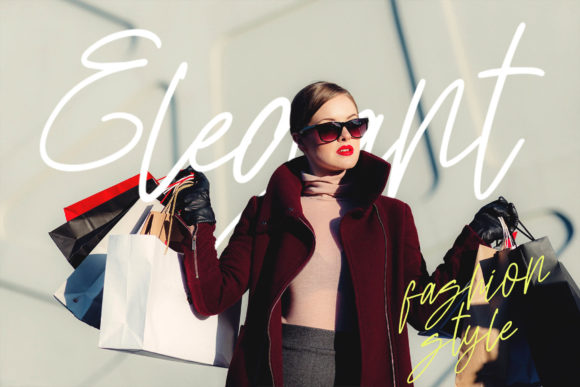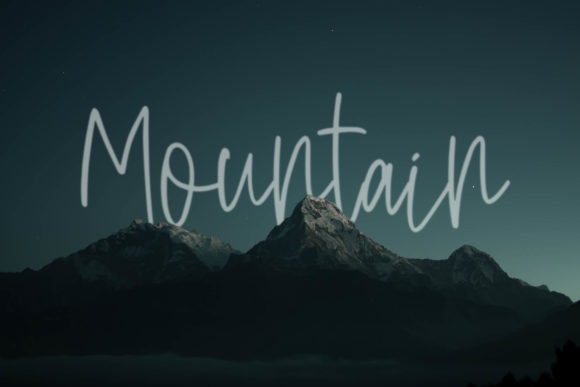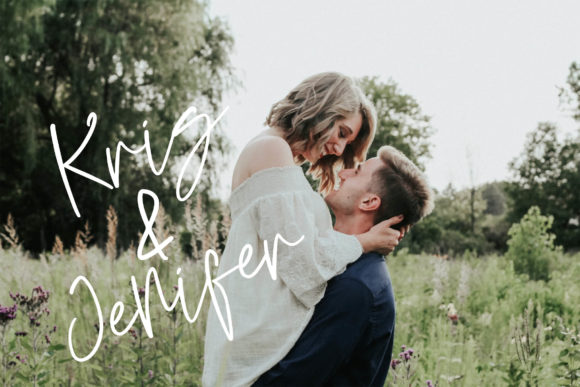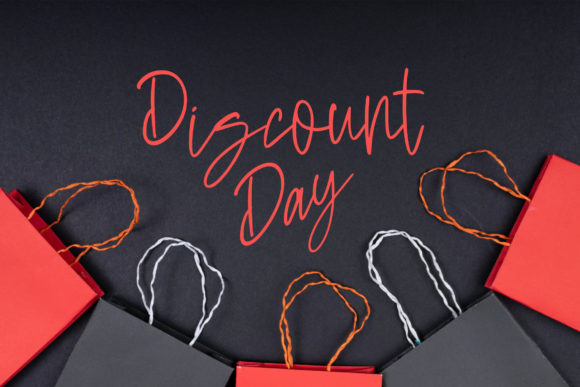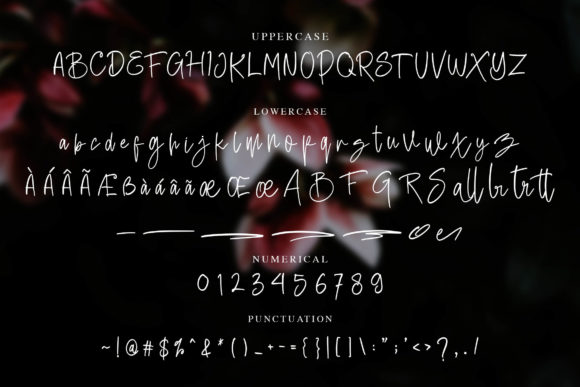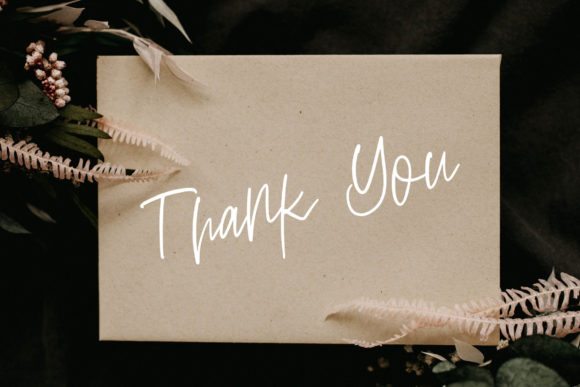
Battie Sellie Font: The Sweet and Adaptable Script Font for Your Creative Projects
Are you a designer or crafter looking for a font that can add a touch of elegance and sophistication to your creative projects? Look no further than the Battie Sellie font. This thin and delicate script font is perfect for creating gorgeous wedding invitations, beautiful stationary art, eye-catching social media posts, and much more. In this article, we’ll take a closer look at the Battie Sellie font and explore its features, benefits, and uses.
What is Battie Sellie Font?
Battie Sellie is a beautiful script font that is characterized by its thin and delicate lines. Its sweet and adaptable style makes it perfect for a wide range of creative projects, from wedding invitations and stationary art to social media posts and more. The font is designed to be highly versatile, making it easy to use in different contexts and designs.
Features of Battie Sellie Font
The Battie Sellie font has several features that make it a great choice for designers and crafters. Some of its key features include:
- Thin and delicate lines: The font’s thin and delicate lines give it a elegant and sophisticated look that is perfect for creating beautiful and eye-catching designs.
- Sweet and adaptable style: The font’s sweet and adaptable style makes it easy to use in different contexts and designs, from formal to informal.
- Highly versatile: The font is highly versatile, making it perfect for a wide range of creative projects, from wedding invitations and stationary art to social media posts and more.
- Easy to read: Despite its delicate lines, the font is easy to read, making it perfect for use in body text as well as headings and titles.
Benefits of Using Battie Sellie Font
There are several benefits to using the Battie Sellie font in your creative projects. Some of the key benefits include:
- Adds elegance and sophistication: The font’s thin and delicate lines give it an elegant and sophisticated look that can add a touch of class to any design.
- Perfect for wedding and event designs: The font’s sweet and adaptable style makes it perfect for creating beautiful wedding invitations, stationary art, and other event-related designs.
- Great for social media posts: The font’s highly versatile style makes it perfect for creating eye-catching social media posts that can help you stand out from the crowd.
- Easy to use: The font is easy to use and can be easily integrated into your design workflow.
Uses of Battie Sellie Font
The Battie Sellie font can be used in a wide range of creative projects, including:
- Wedding invitations: The font’s sweet and adaptable style makes it perfect for creating beautiful wedding invitations that will set the tone for your special day.
- Stationary art: The font’s elegant and sophisticated look makes it perfect for creating beautiful stationary art, including greeting cards, thank you cards, and more.
- Social media posts: The font’s highly versatile style makes it perfect for creating eye-catching social media posts that can help you stand out from the crowd.
- Branding and packaging: The font’s elegant and sophisticated look makes it perfect for use in branding and packaging designs.
Tips for Using Battie Sellie Font
Here are a few tips for using the Battie Sellie font in your creative projects:
- Use it sparingly: The font’s delicate lines can be overwhelmed by too much text, so use it sparingly to create a greater impact.
- Pair it with bold fonts: The font’s thin and delicate lines can be paired with bold fonts to create a striking contrast.
- Experiment with colors: The font’s elegant and sophisticated look can be enhanced by experimenting with different colors and textures.
In conclusion, the Battie Sellie font is a beautiful and versatile script font that can add a touch of elegance and sophistication to your creative projects. Its sweet and adaptable style makes it perfect for a wide range of designs, from wedding invitations and stationary art to social media posts and more. With its highly versatile style and easy-to-use features, the Battie Sellie font is a great choice for designers and crafters looking to create stunning designs.